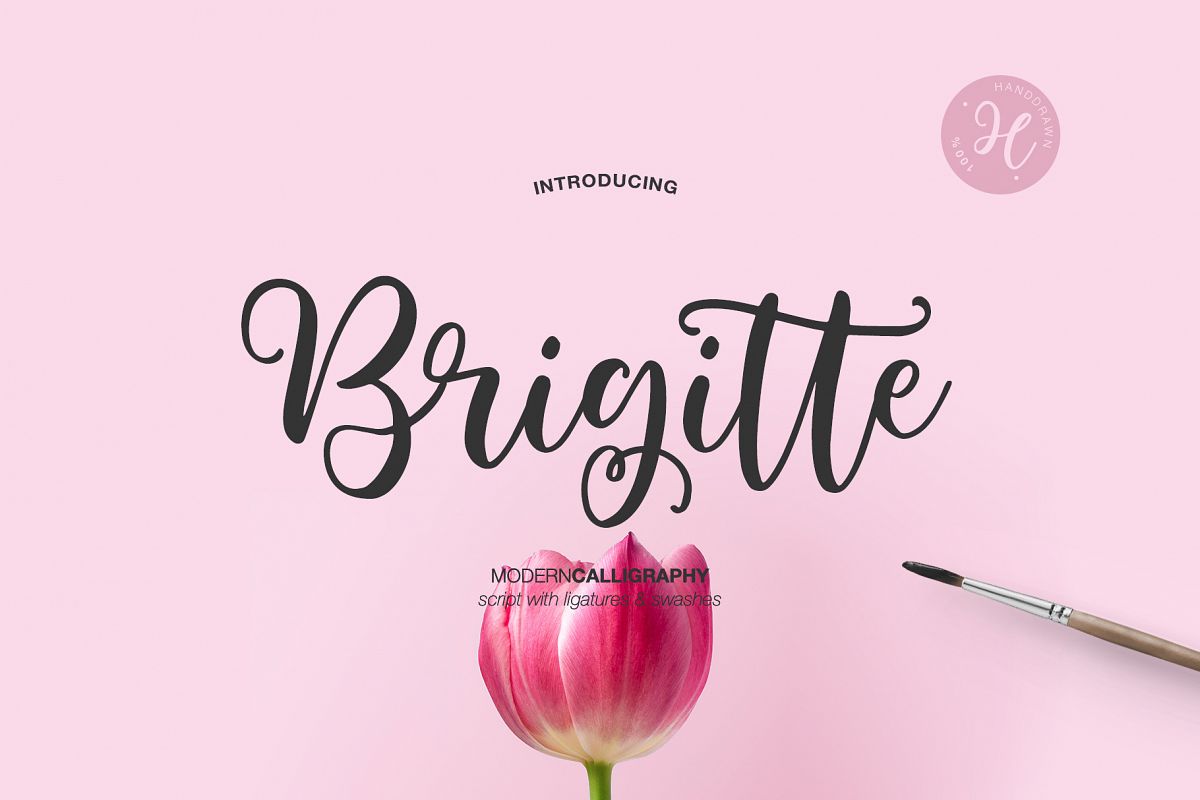
BRIGITTE handwritten font
Hello dears! This font is a classic Modern Calligraphy. Here is that: floating baseline, ligatures, swashes and multilingual support :)
Brigitte Script will look beautiful on holiday invitations, wedding invites and stationery, logos, and more.
• Support ALL European Languages